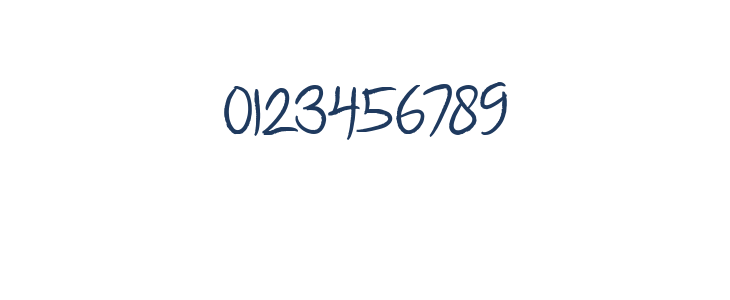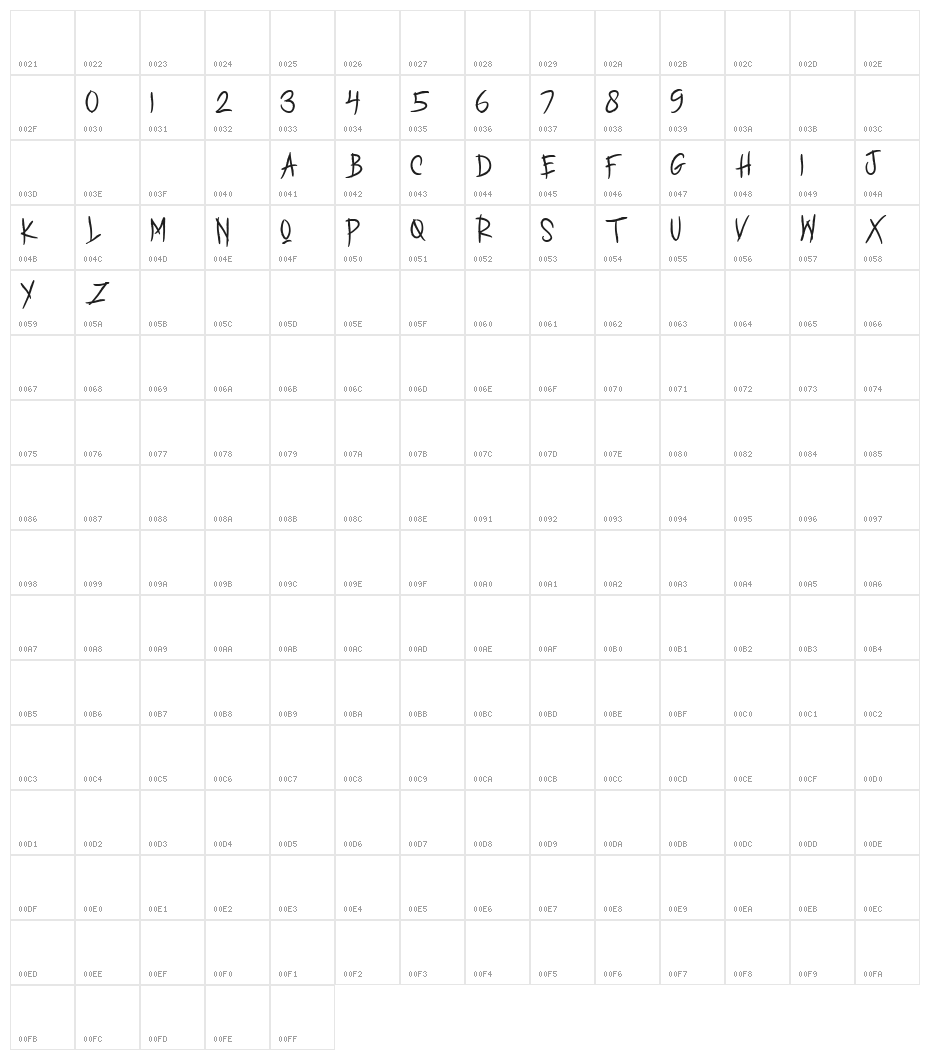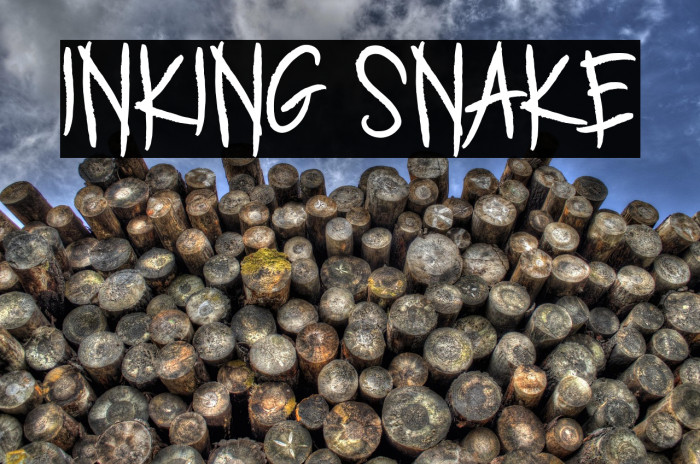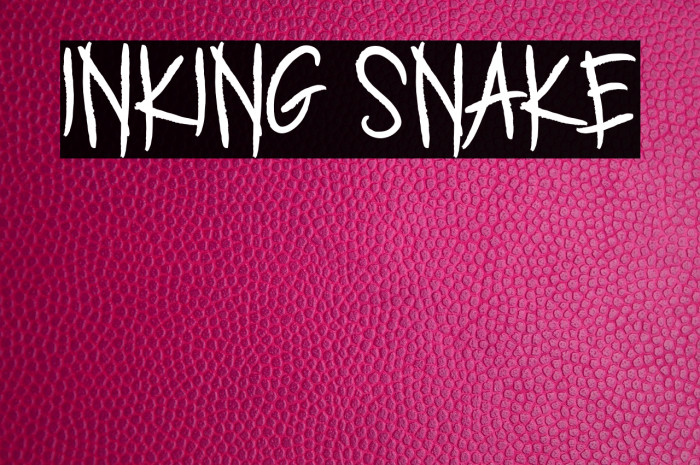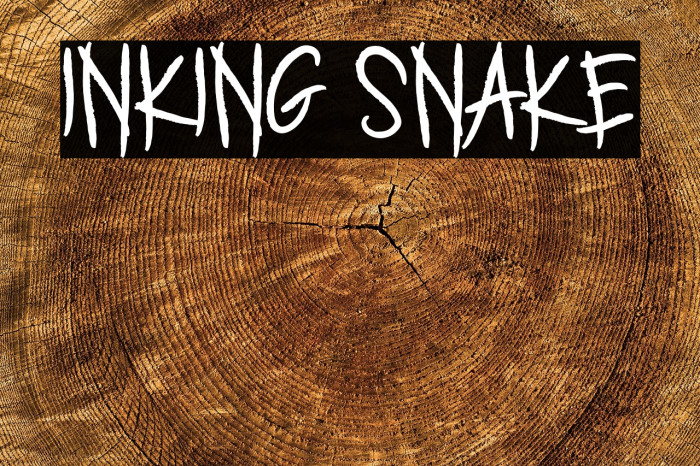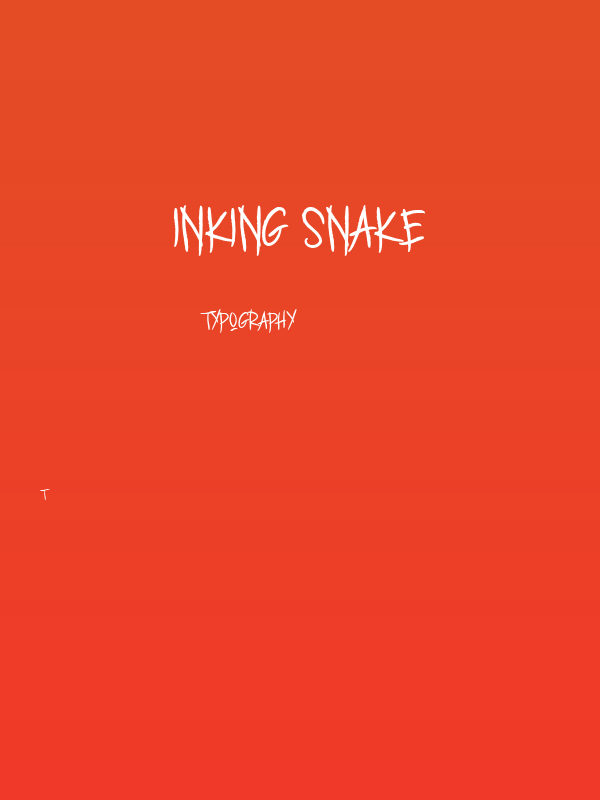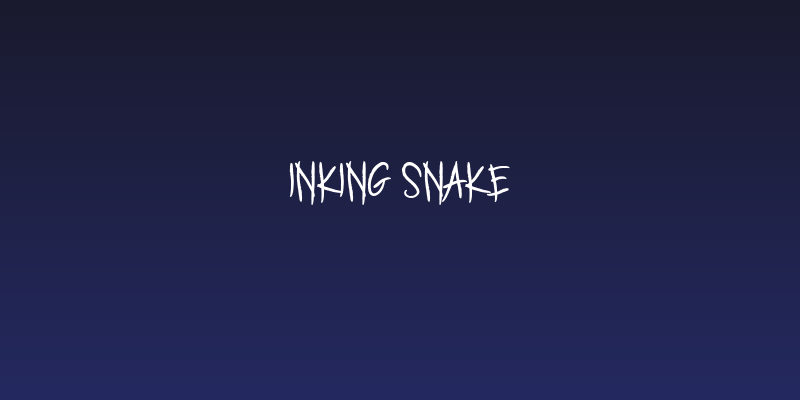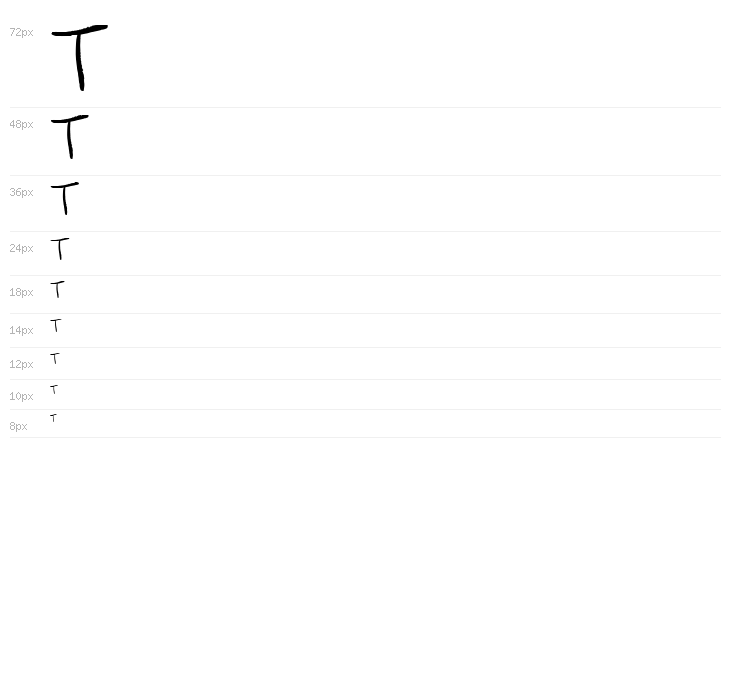
INKING SNAKE Font
INKING SNAKE Description
This font features a bold, hand-drawn style with a slightly irregular and playful appearance. The uppercase letters are tall and narrow, with exaggerated curves and angles that give them a dynamic and energetic feel. The strokes are uneven, adding a sense of spontaneity and creativity. The numbers maintain the same lively character, with each digit having its own unique flair. This font is ideal for projects that require a personal touch or a sense of artistic expression. It stands out with its distinctive, informal style, making it perfect for eye-catching designs.
| Proposed Projects | Ideal for posters, album covers, creative branding, and artistic projects. |